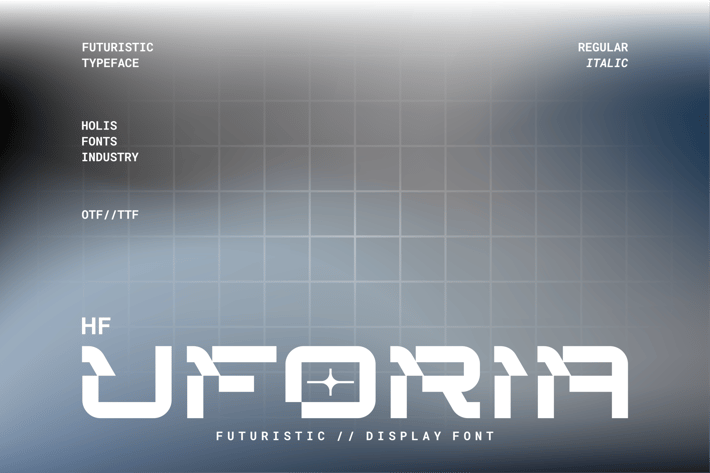
HF Uforia Futuristic Font
HF Uforia is a futuristic font style with sophisticated, modern and minimalist all caps characters, available in regular and italic styles. Suitable for designing posters, logos, titles and various other designs.
All Caps Font
Style: Regular & Italic